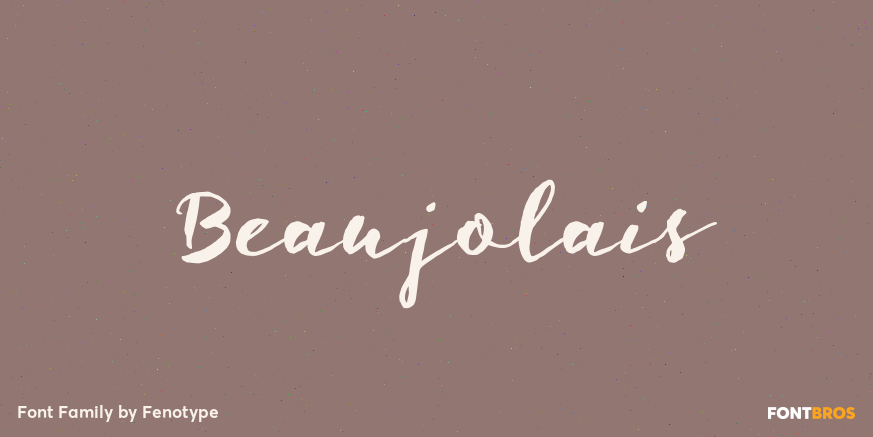
Beaujolais
About Beaujolais
Beaujolais is an organic brush family of two scripts and an ornament set. It is both rustic and modern -fast, contemporary and handmade. Beaujolais is equipped with OpenType features such as Automatic Ligature, Stylistic Alternates and Swash to make the…